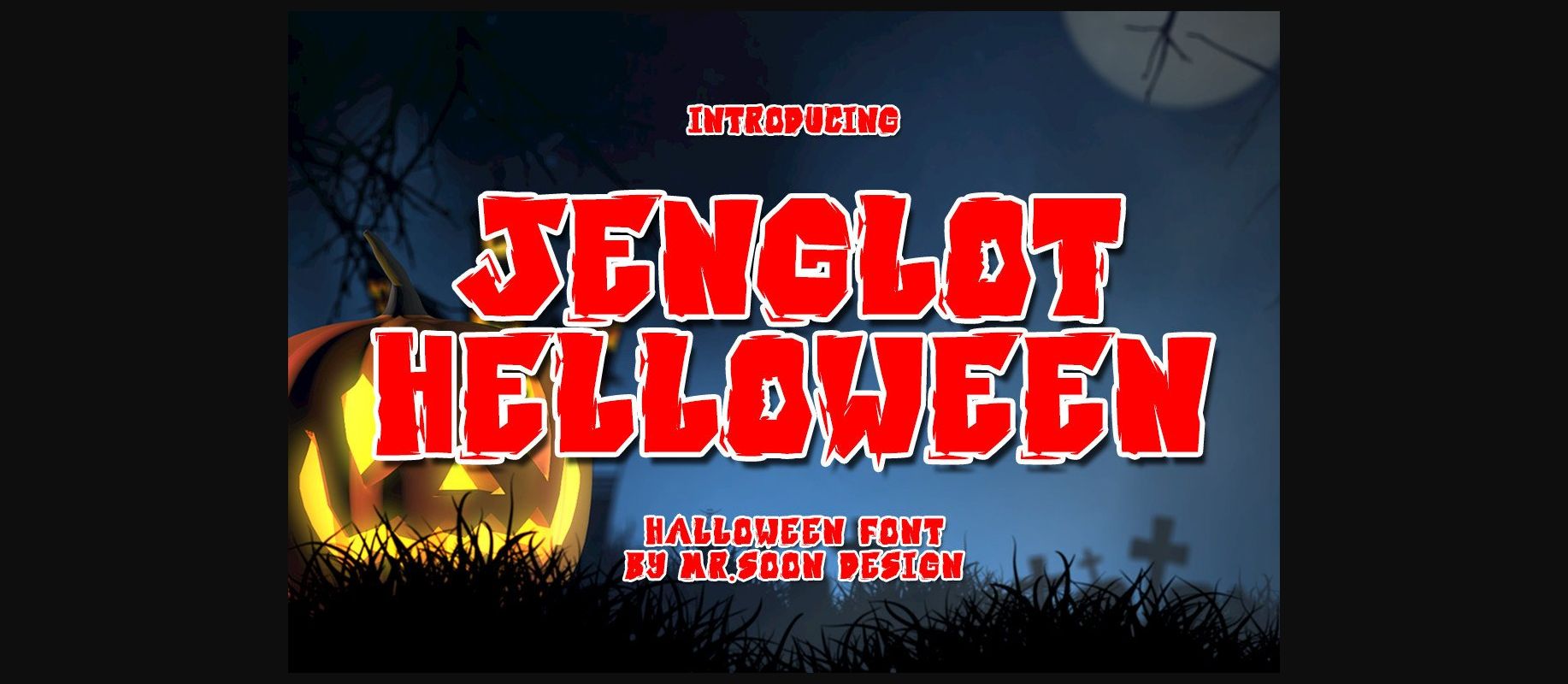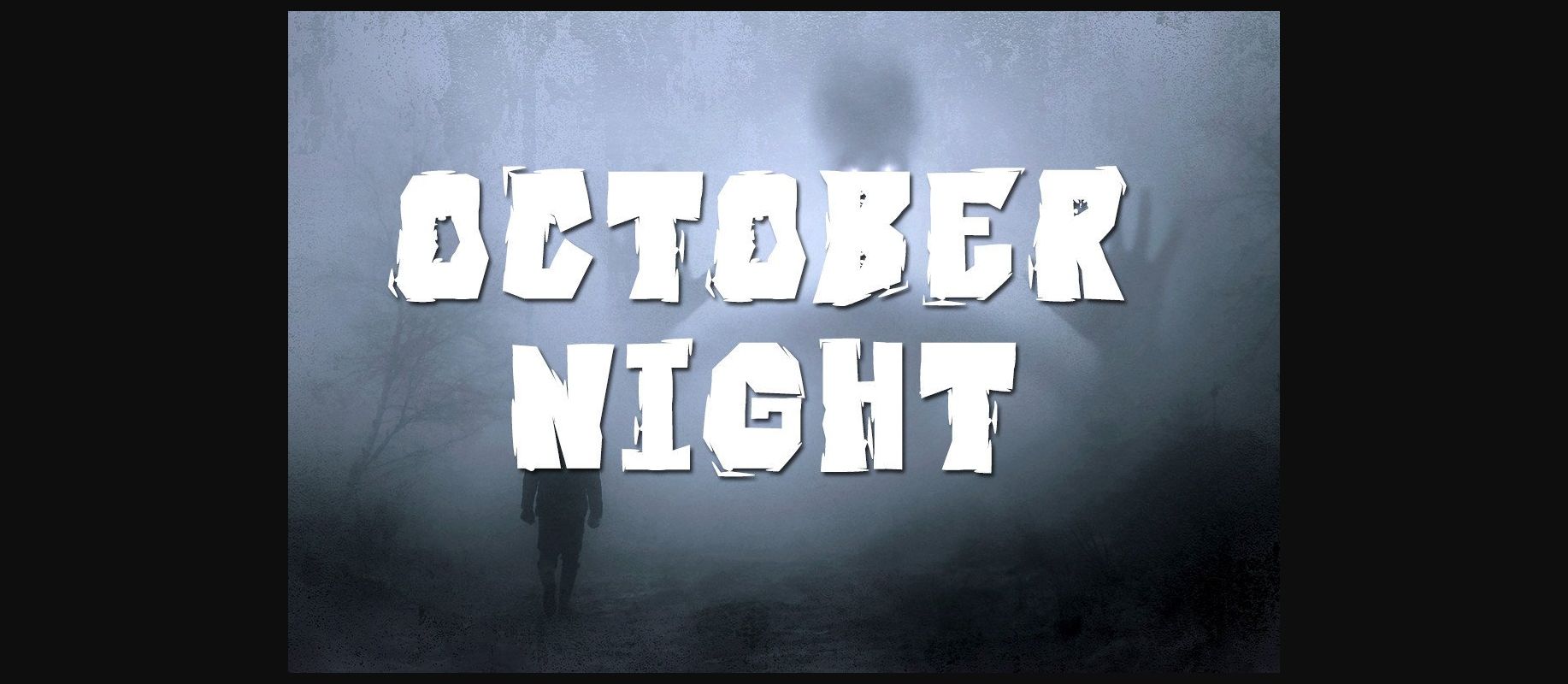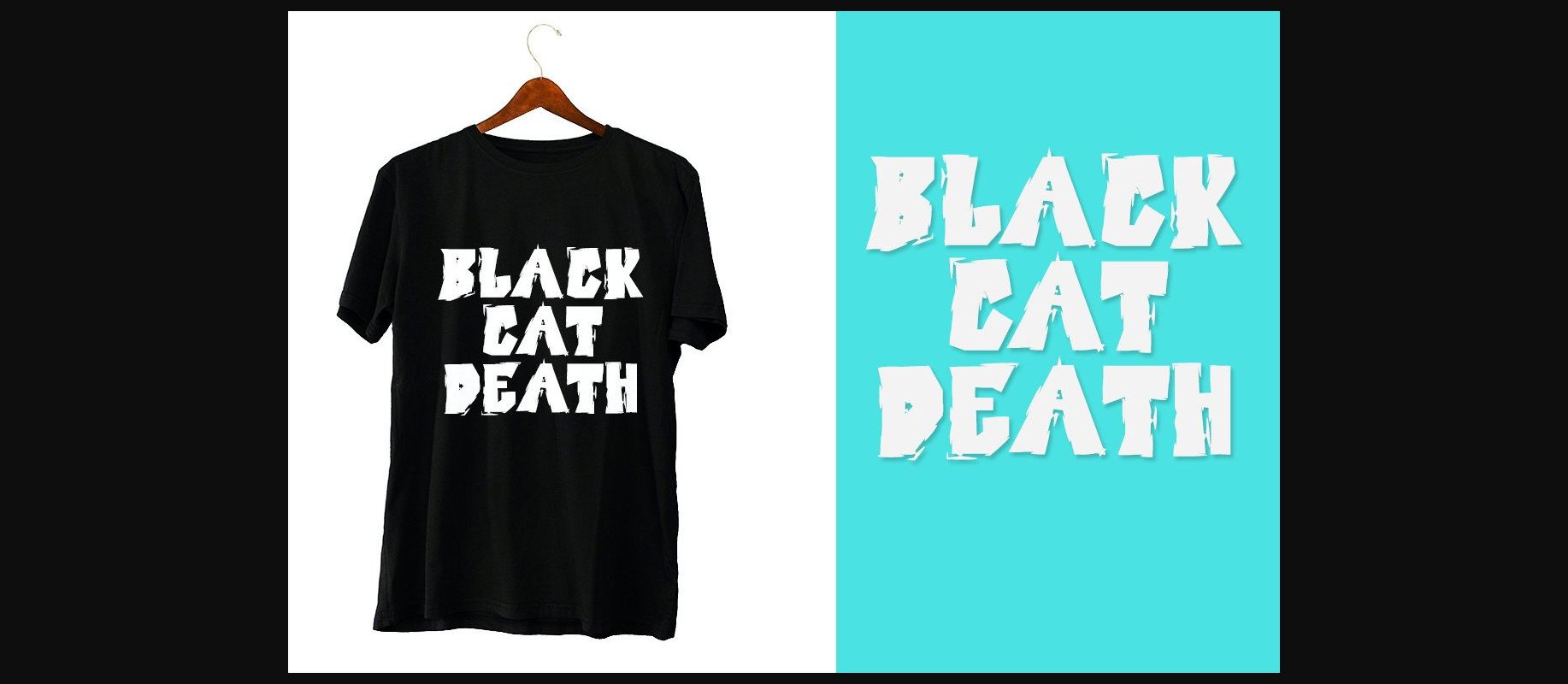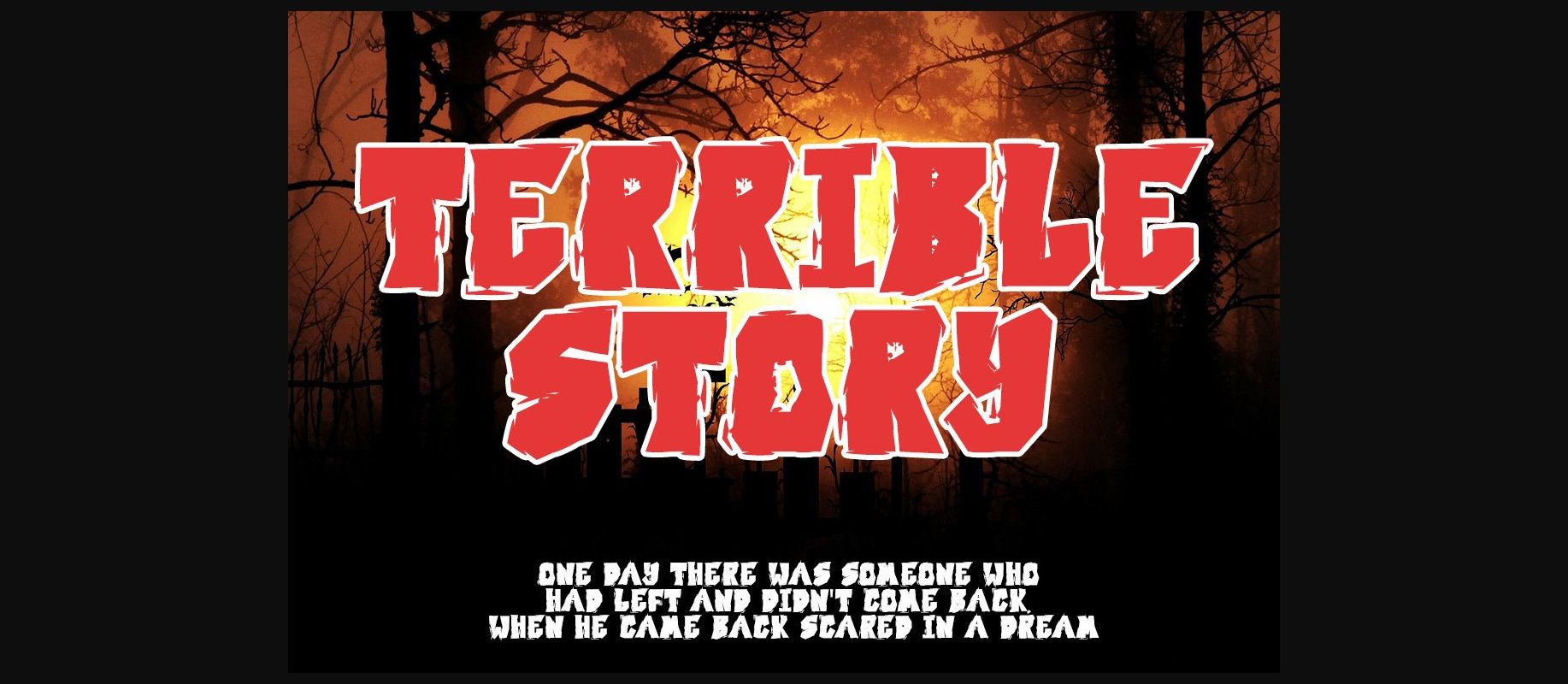
Jenglot Helloween Font
About Jenglot Helloween Font
Jenglot Helloween utilizes capital letters to create a strong prominent feel on the page or screen. Horror stories need bold titles and this font is bold. This font could be used in children’s horror storybooks, headlines, and titles.